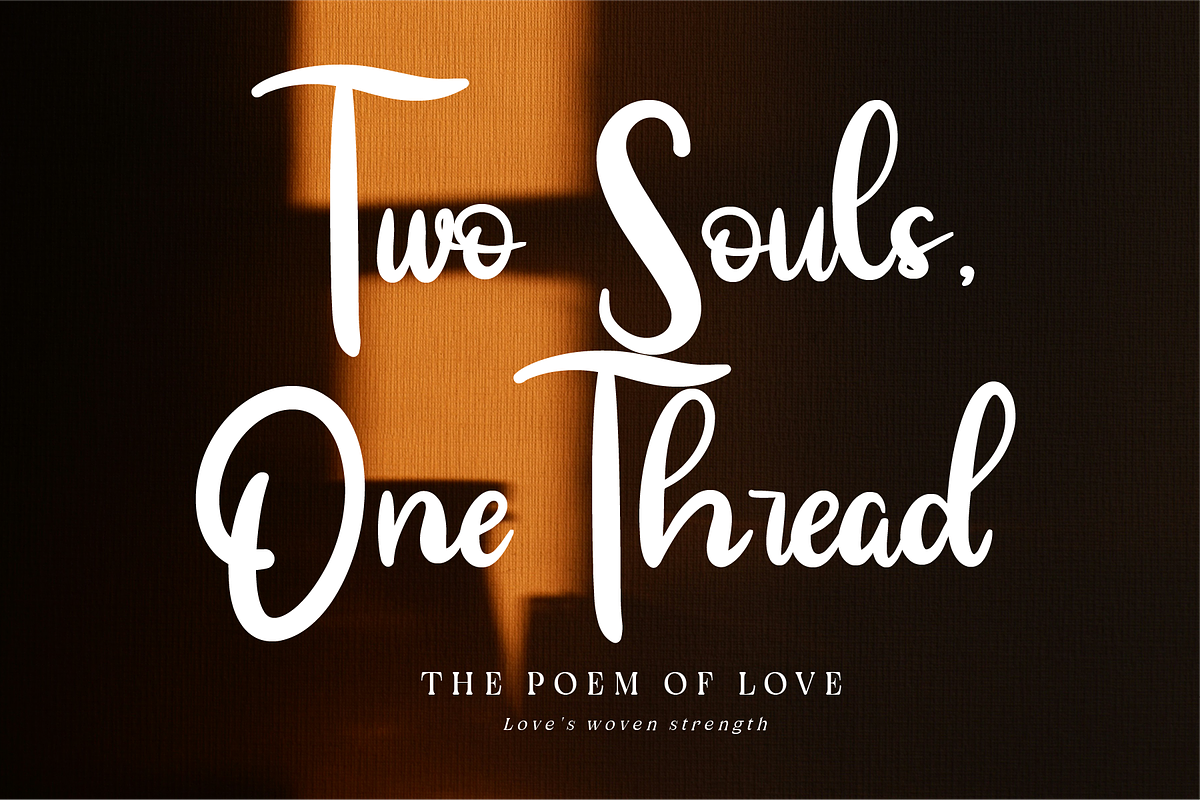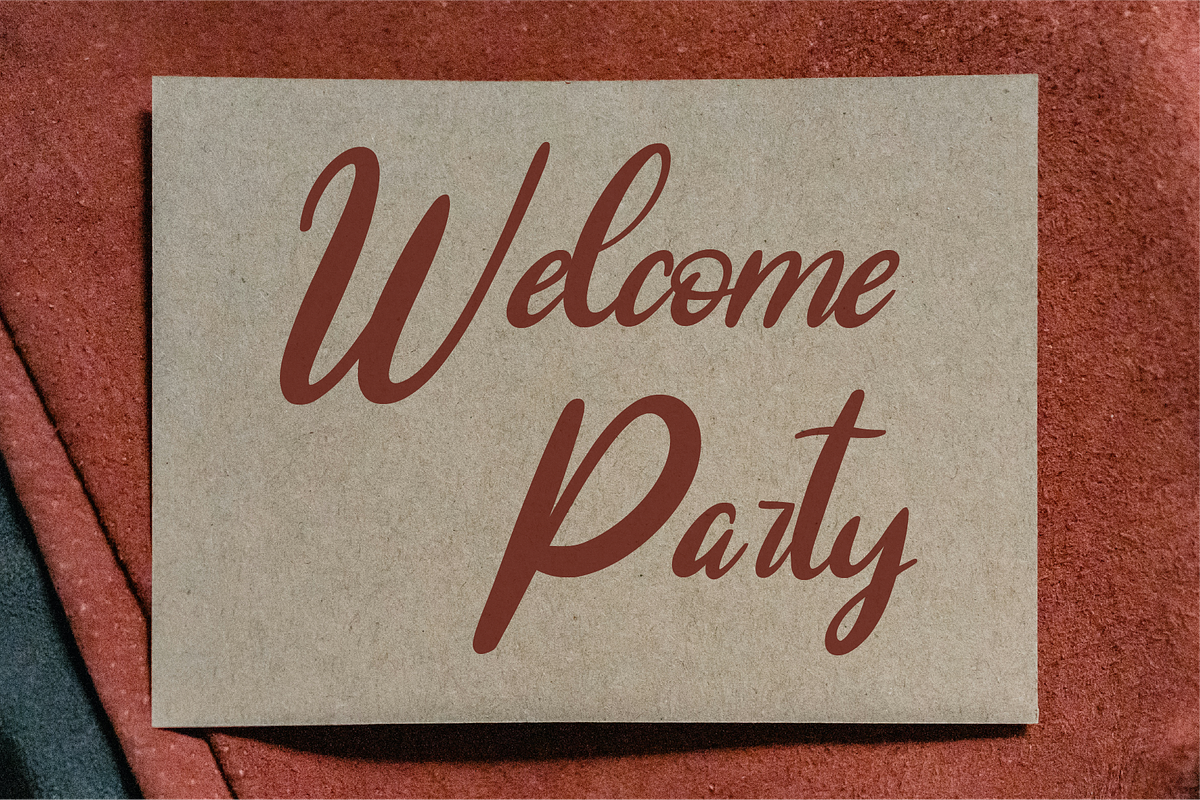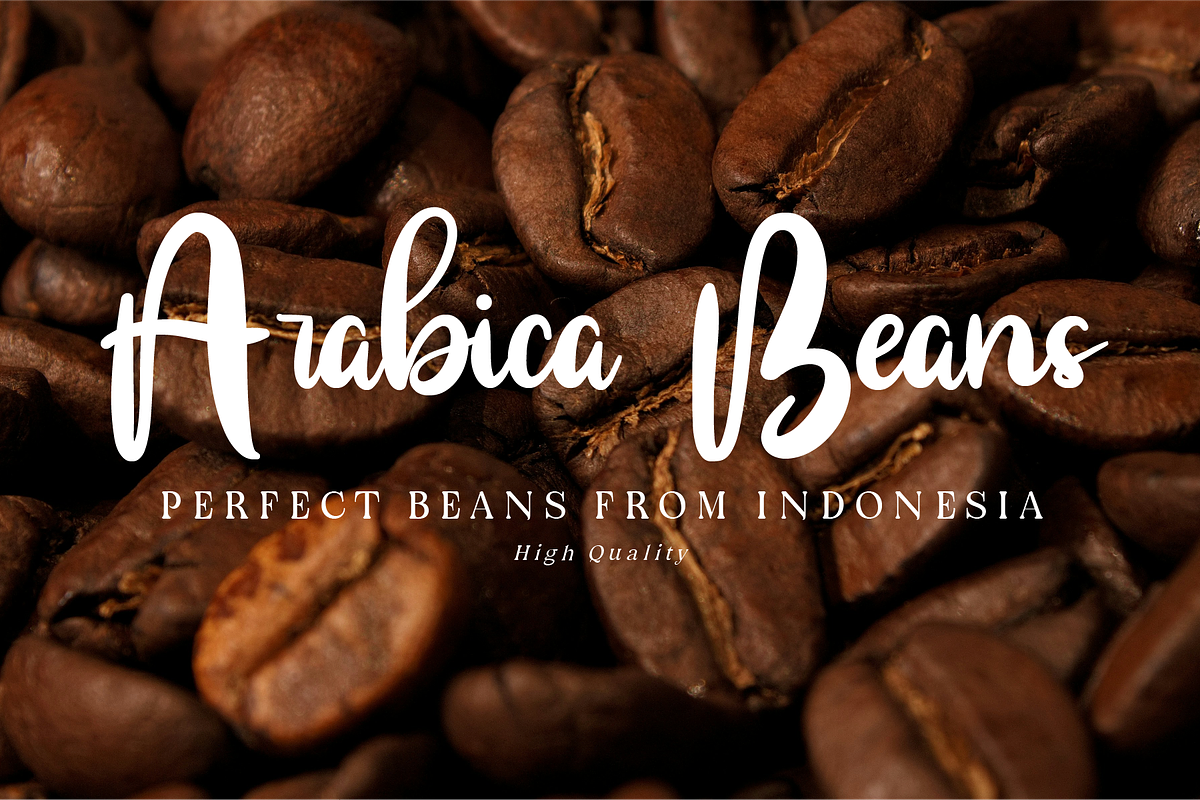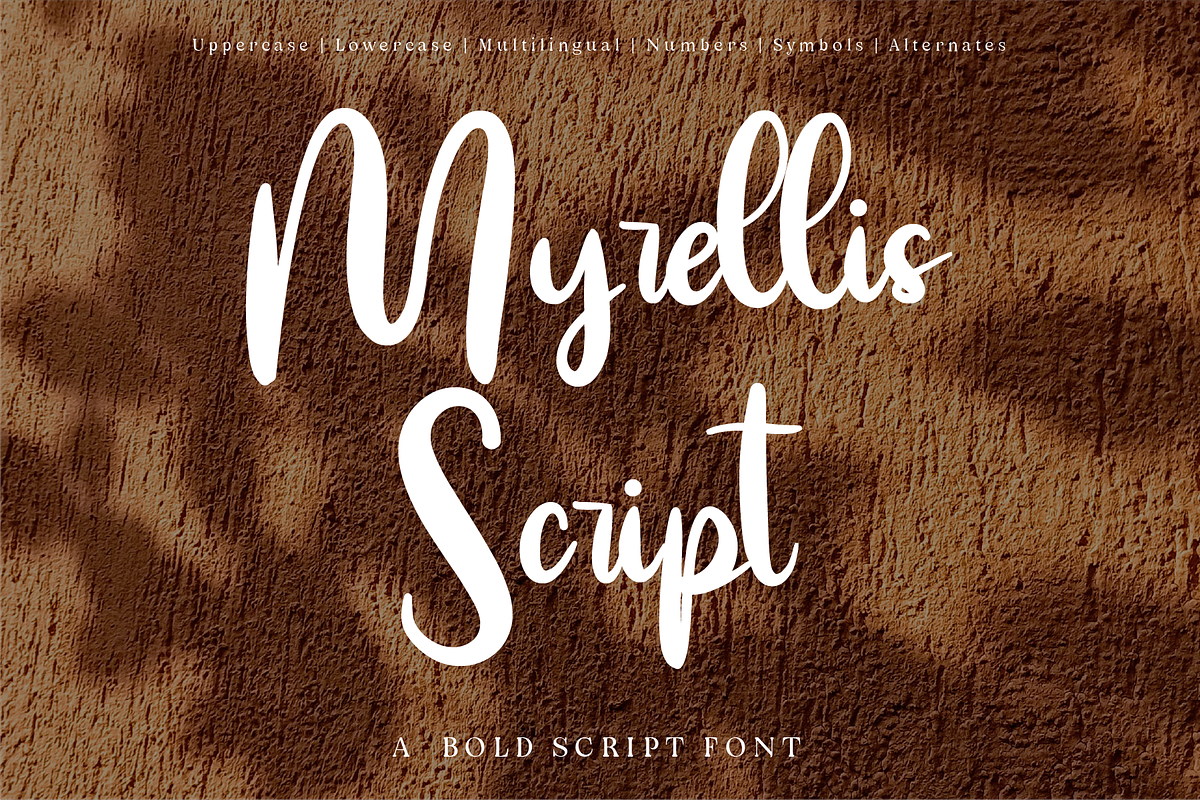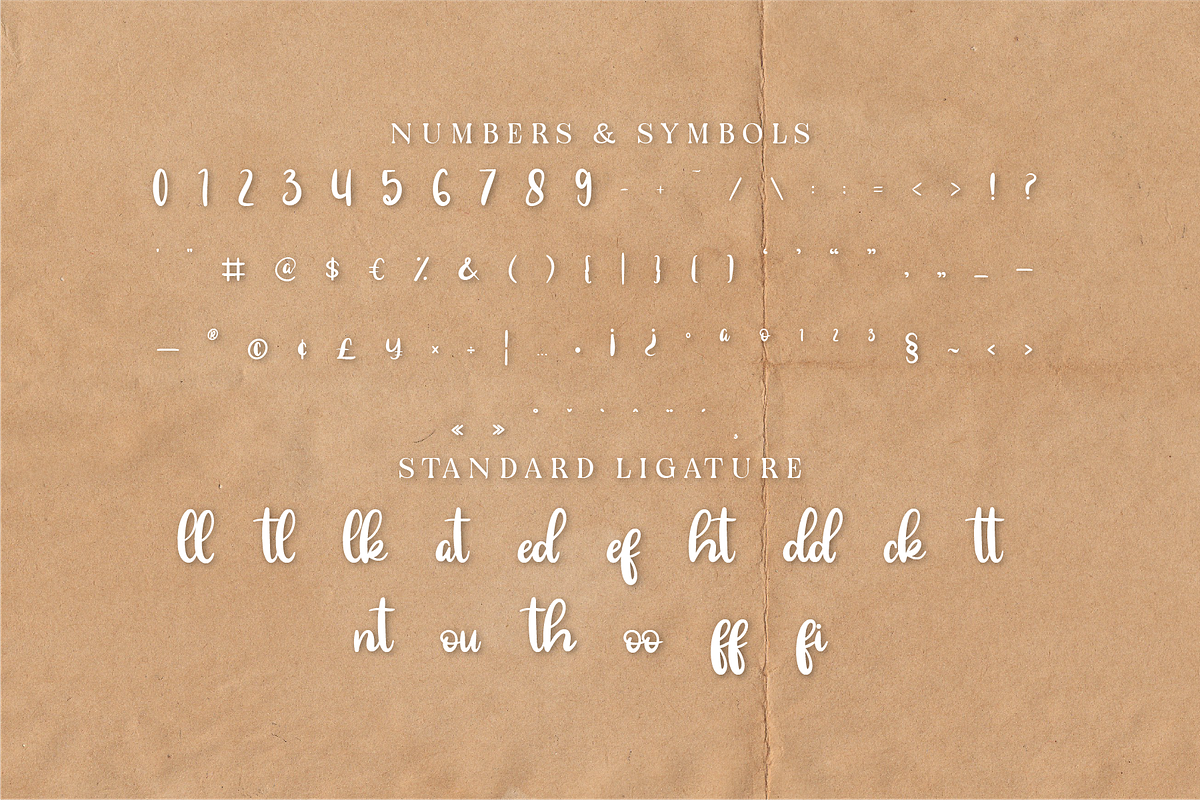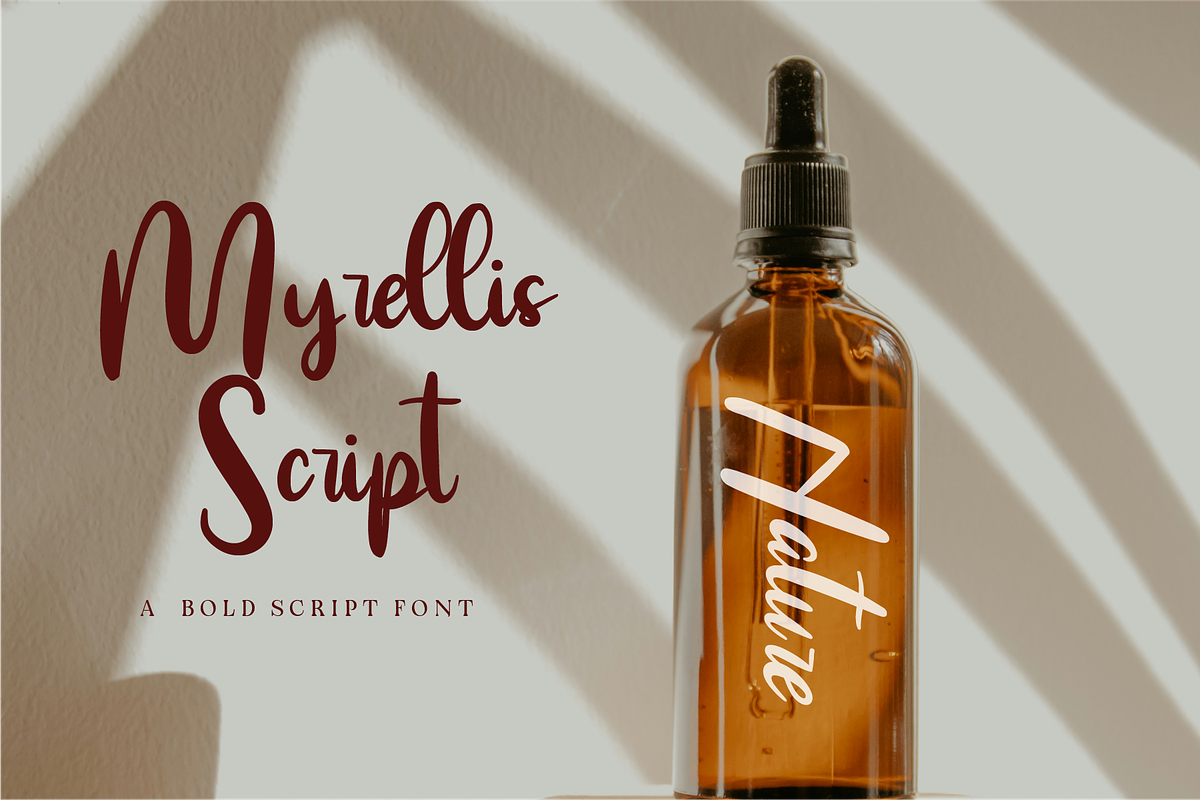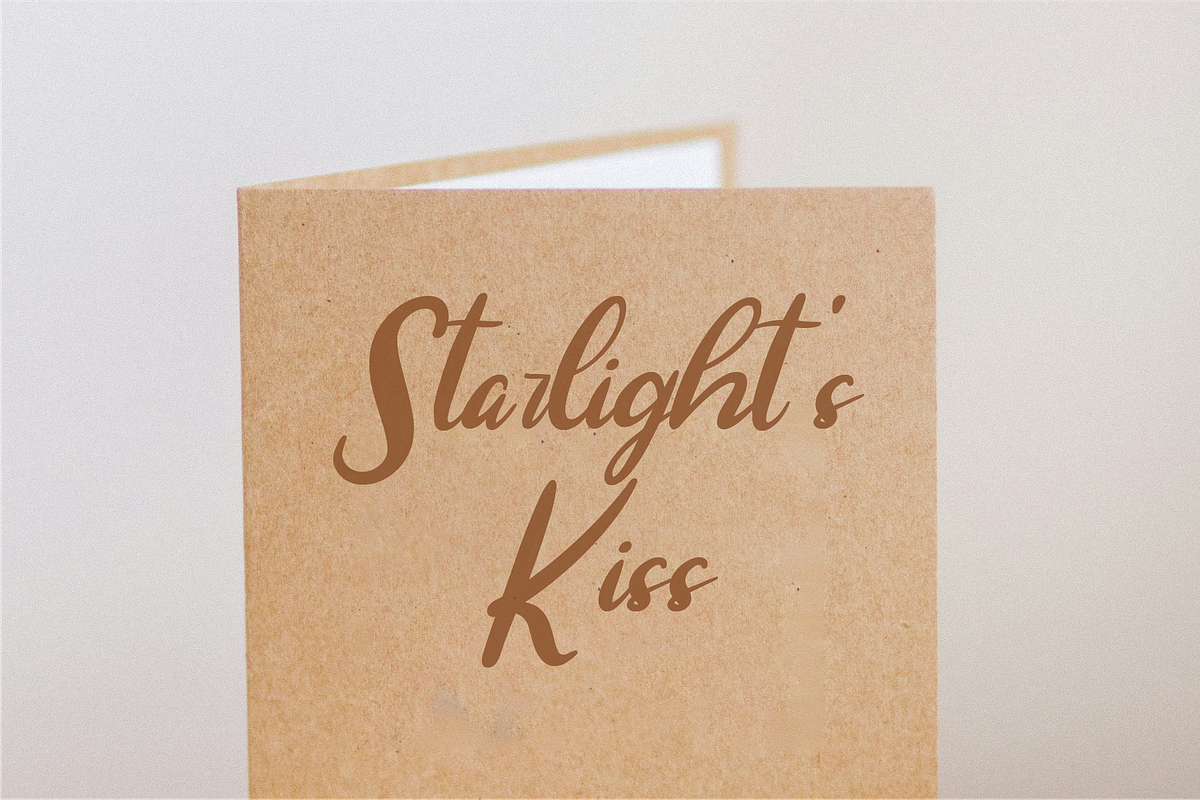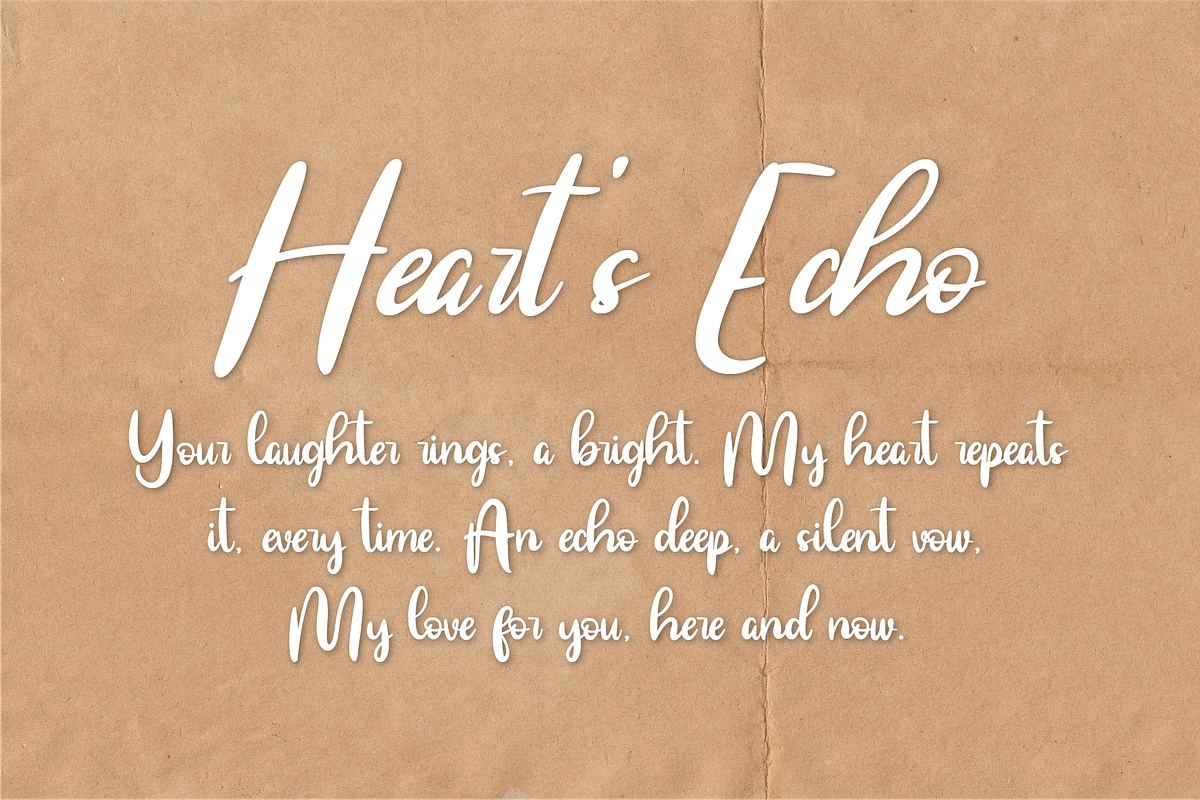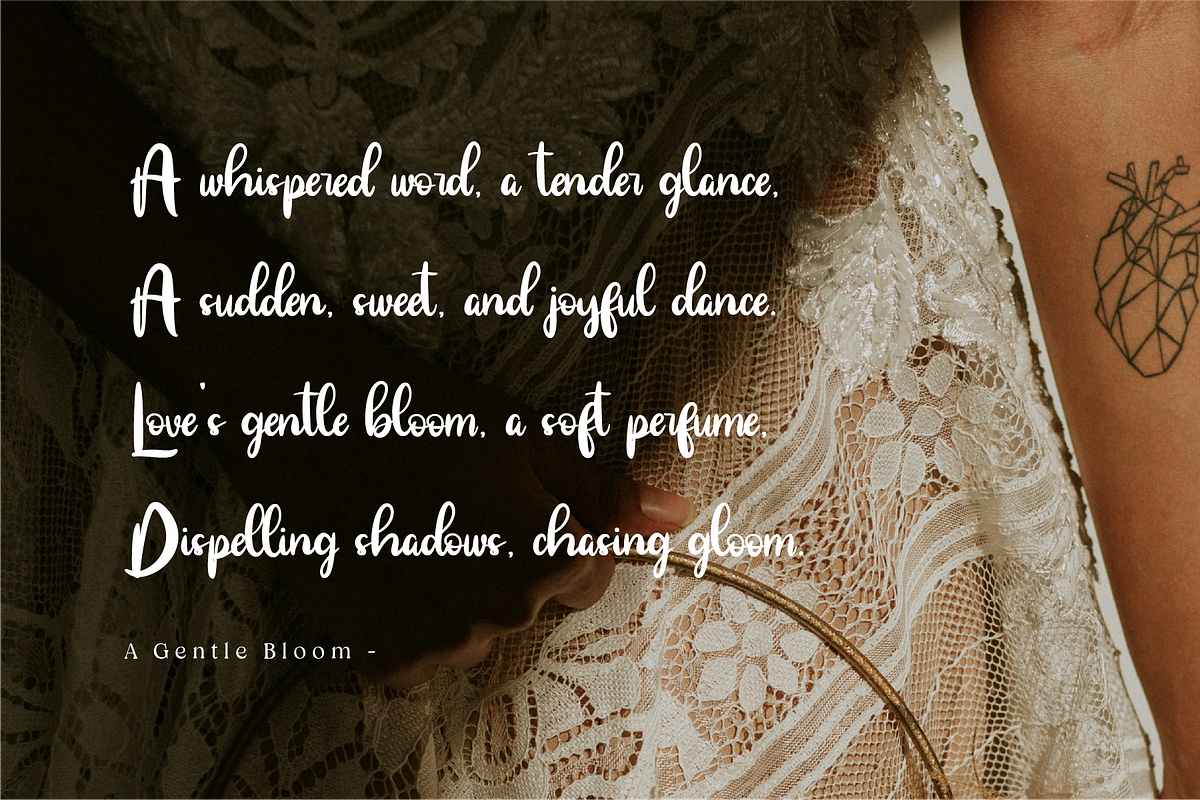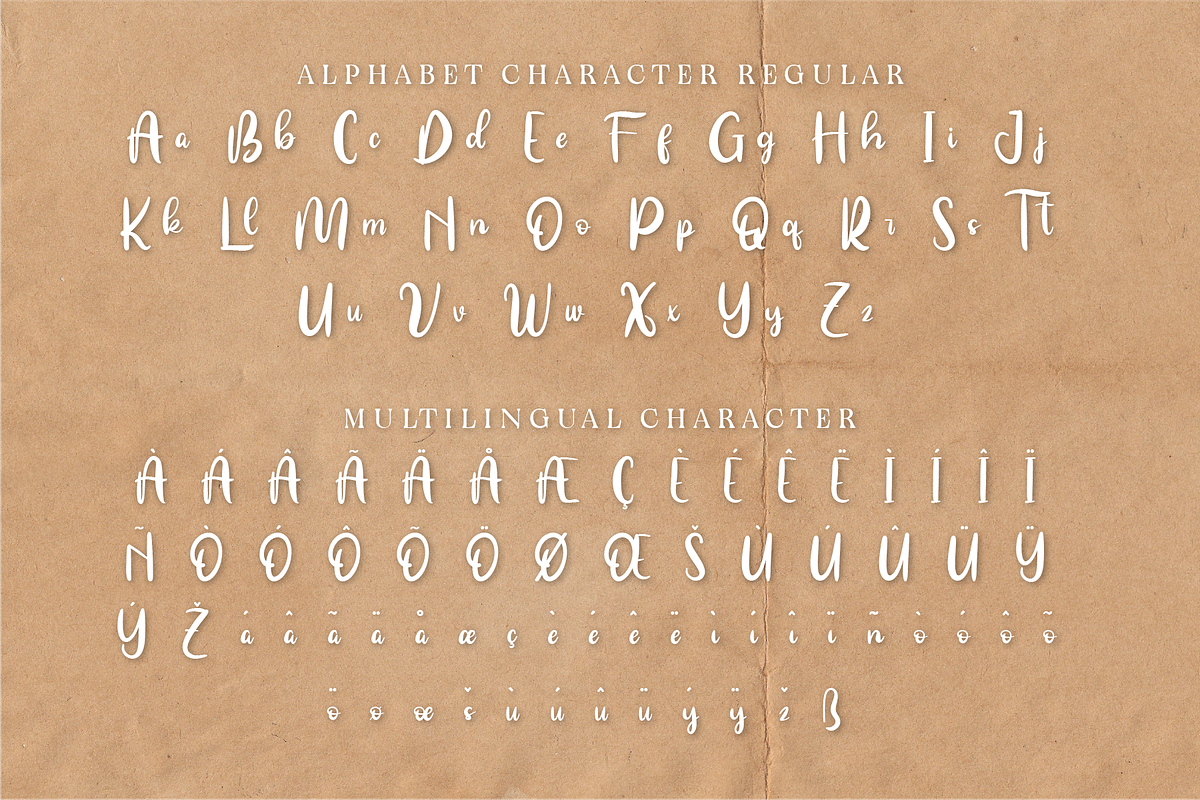
Myrellis Script - Bold Script
Myrellis Script – A Bold & Expressive Script Font Meet Myrellis Script, a bold and dynamic script font that captures the perfect balance of elegance and confidence. With its strong, fluid strokes and handcrafted feel, this typeface is designed to make a statement while maintaining a natural, flowing charm. Perfect for branding, packaging, advertising, social media, invitations, and editorial projects, Myrellis Script adds a touch of authenticity and sophistication. The bold yet graceful letterforms ensure high readability while maintaining a unique personality, making it an excellent choice for eye-catching headlines and distinctive logos.
Why Choose Myrellis Script?
🔥 Bold & Expressive: A strong script with a confident, handcrafted touch. ✍ Smooth & Natural Flow: Perfectly balanced strokes for effortless readability. 🎨 Versatile & Stylish: Ideal for logos, product packaging, social media, and elegant typography. 🌍 Multilingual Support & Alternates: A font that speaks your style, no matter the language. Bring power and personality to your designs with Myrellis Script. Download now and let your words flow with bold elegance! ✨🖋
- Standard Character A-Z, a-z, 0-9, Punctuation & symbols
- Regular and Italic